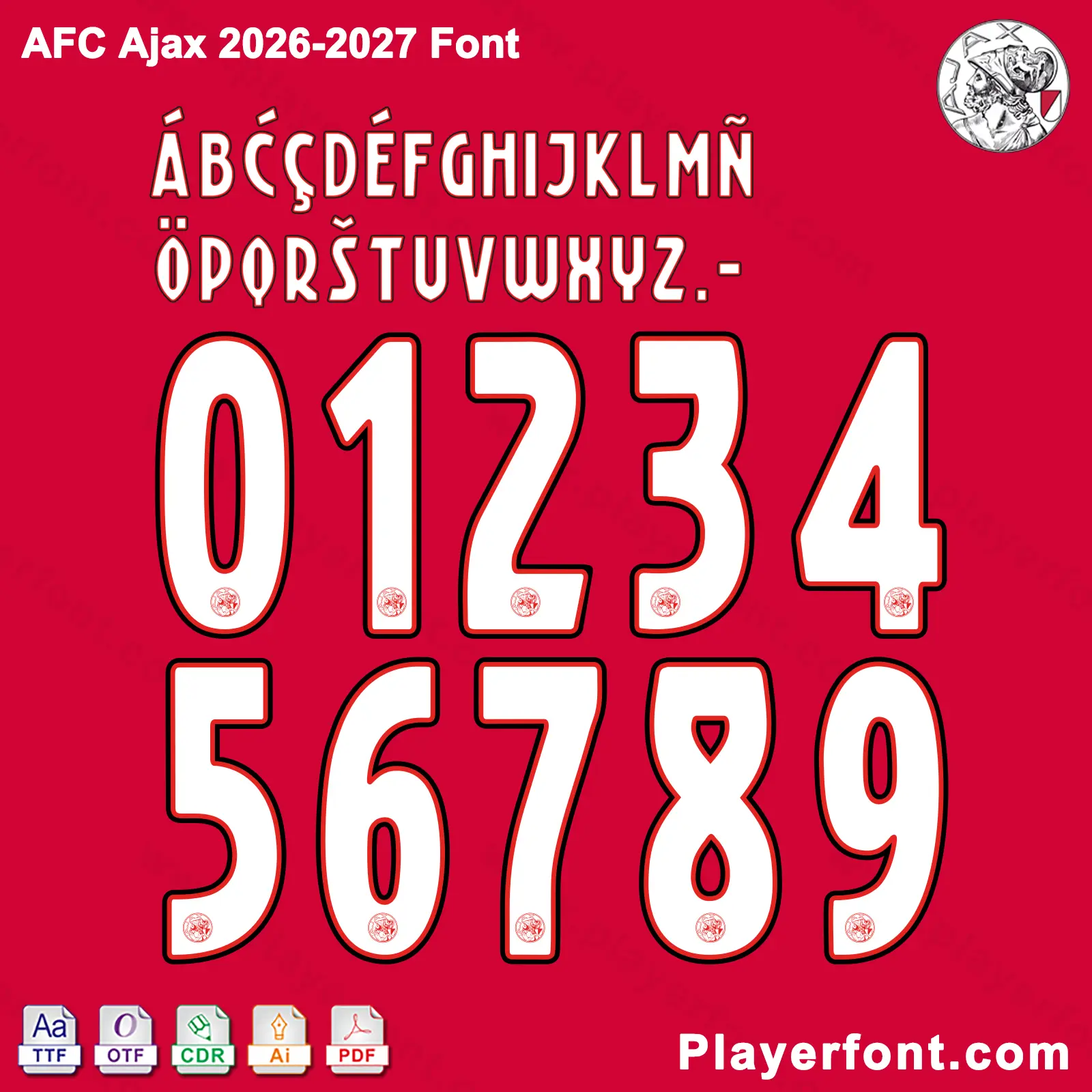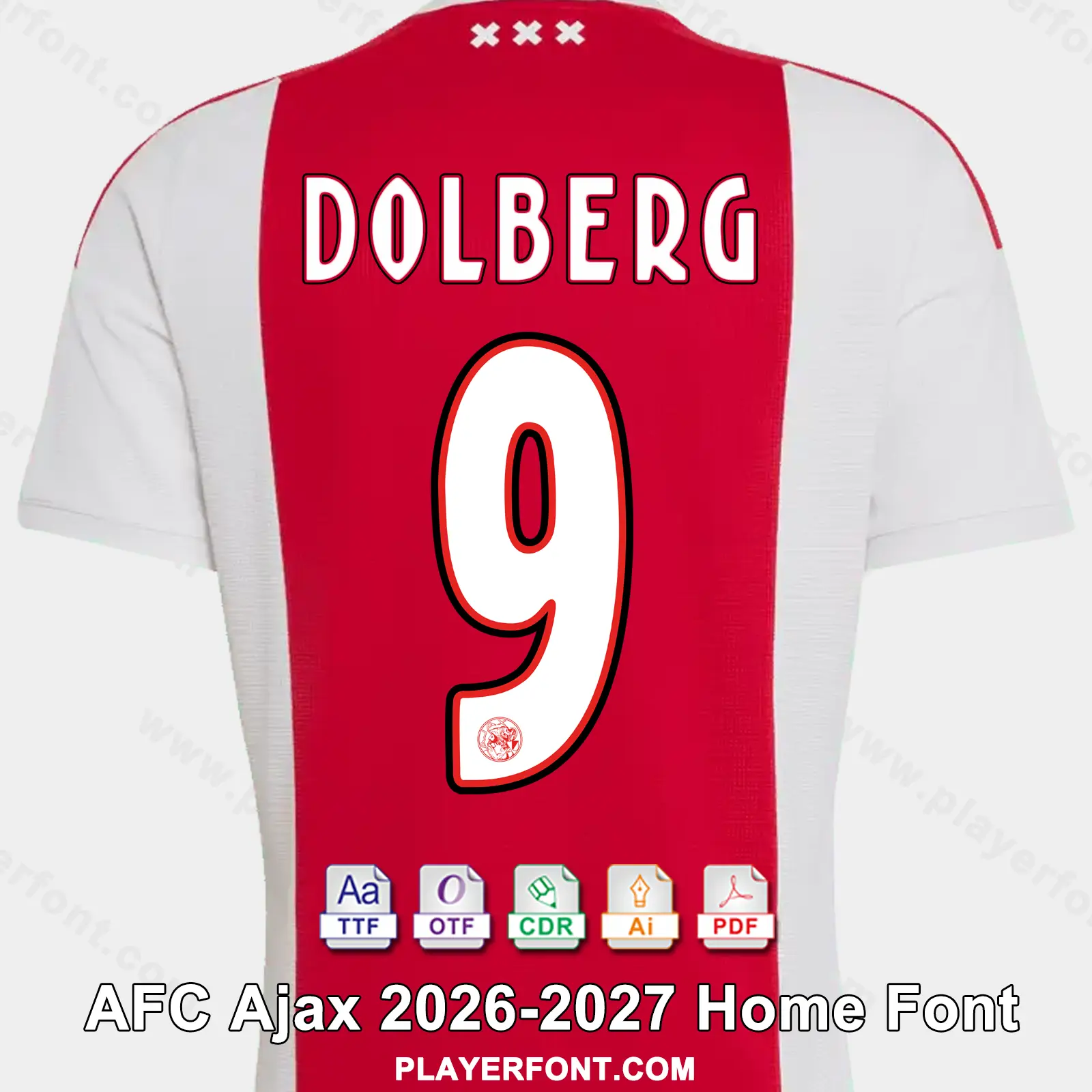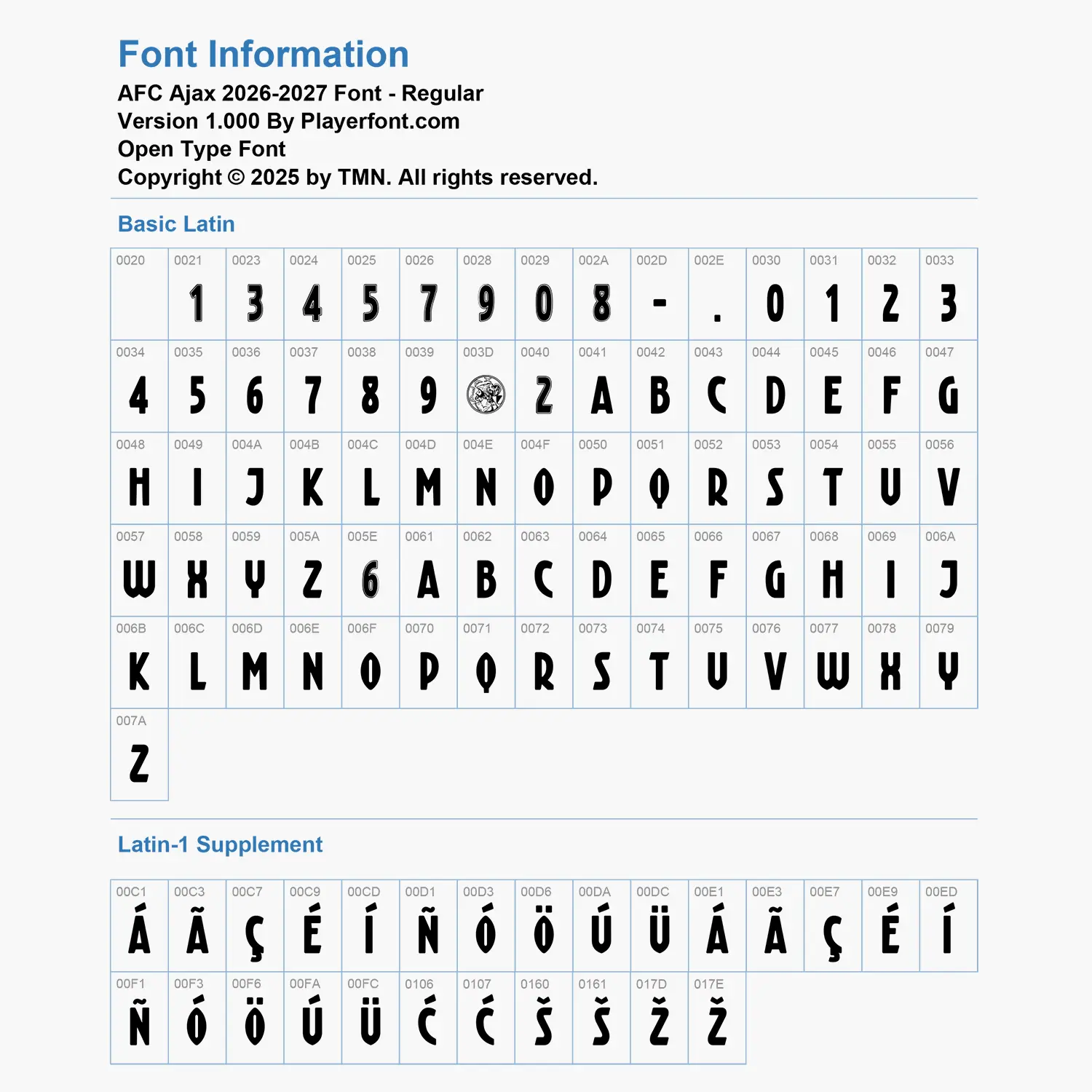
Elevate your sports jersey mockups, football custom graphics, and vector apparel printing projects with the high-quality AFC Ajax 2026-2027 Font Download. Masterfully engineered by Playerfont.com, this high-performance typography set replicates the official-style numbers and distinct lettering featured on the pitch for the Eredivisie and European campaigns.
Key Typography Features & Character List:
This typography pack is fully optimized to support international player rosters and diverse numbering layouts:
- Basic Latin & Distinctive Styling: Contains an elegant uppercase character set with smooth, rounded corners, a thin center inline cut, numbers (0-9), periods, and hyphens.
- Advanced International Accent Support: Includes a complete set of accents (such as Á, Ã, Ç, É, Í, Ñ, Ó, Ö, Ú, Ü, Š, and Ž) ensuring flawless rendering for global football stars and localized naming requirements (such as Dolberg, Henderson, etc.).
- Authentic Visual Details: The vibrant white jersey numbers feature a premium custom double-border in red and black, with the signature historical Ajax club crest subtly embedded at the base of each digit.
| Design Feature | Rounded Modern Layout with Dual Outline Borders & Crest Base |